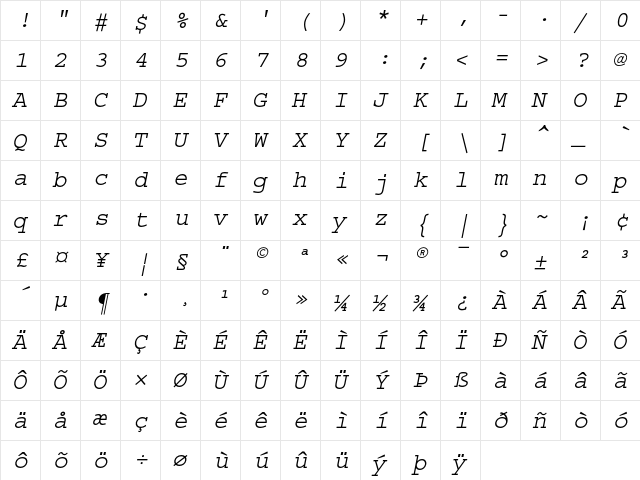
Courier Oblique
Design Context for Courier Typeface
Courier uses fixed-width spacing throughout, giving it the structured, systematic character associated with coding environments and technical documentation. Its italic angle brings a sense of urgency and motion to the letterforms.
Pro Tip: Pair Courier with a proportional sans for UI contexts where code-style labels and regular body copy need to coexist.